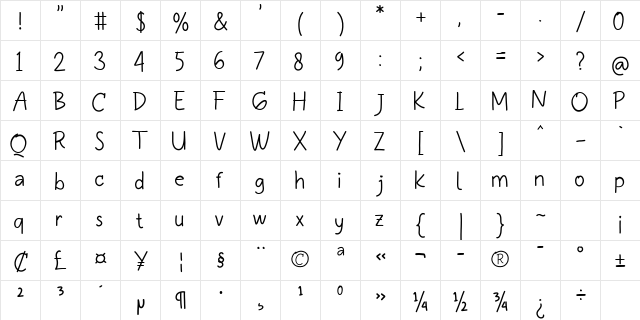
Daffodile Regular
Design Context for Daffodile Typeface
Daffodile takes a measured approach to typography — its balanced proportions and neutral character make it a reliable workhorse for both digital and print work.